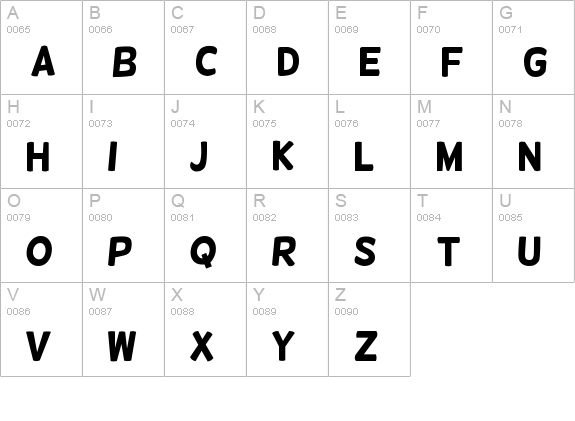
Helsinki Font Details
The Helsinki font is a modern and sleek typeface that exudes elegance and sophistication. With its clean lines and balanced proportions, Helsinki is perfect for a wide range of design projects, from branding to editorial design. This versatile font is free to download at FontsMarket.com, making it accessible to designers of all levels. Whether you're creating a logo, poster, or website, Helsinki's timeless appeal will elevate your work and give it a polished finish. Add a touch of class to your designs with Helsinki font today.